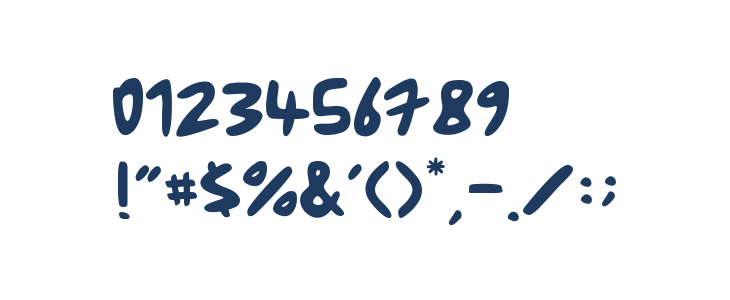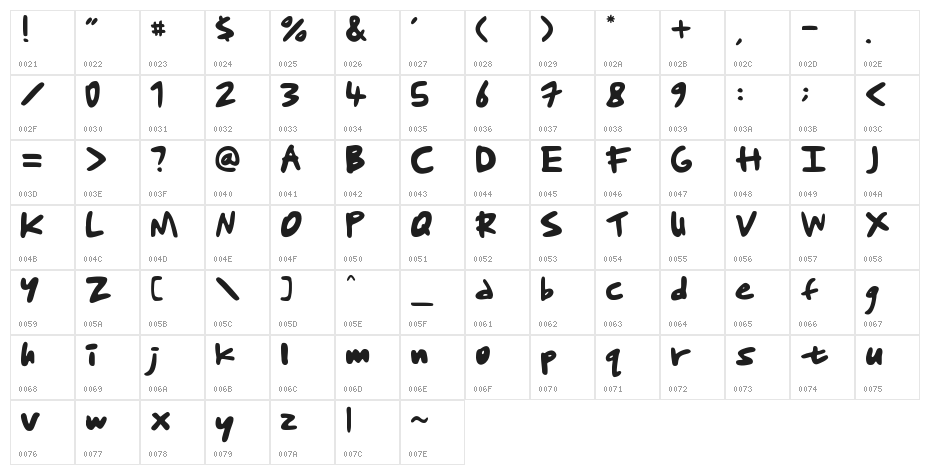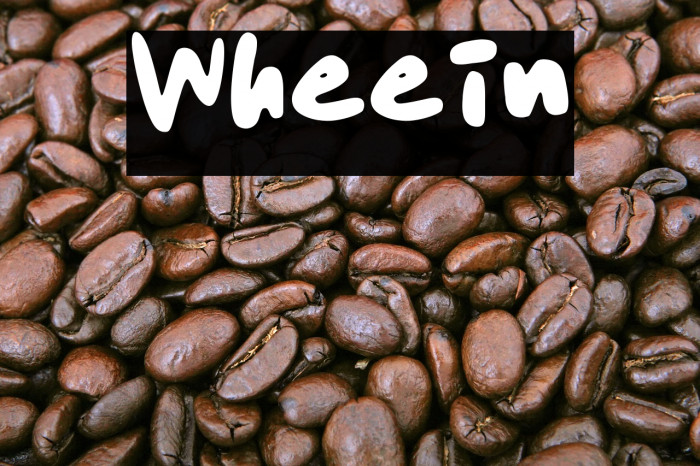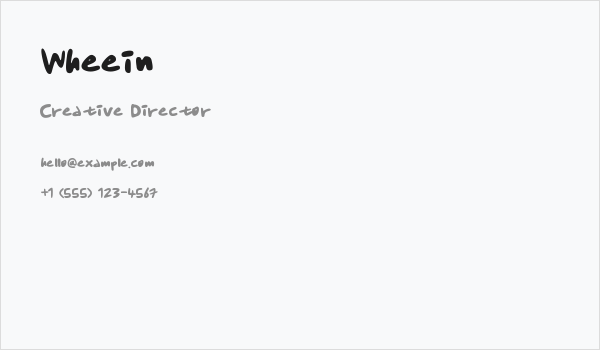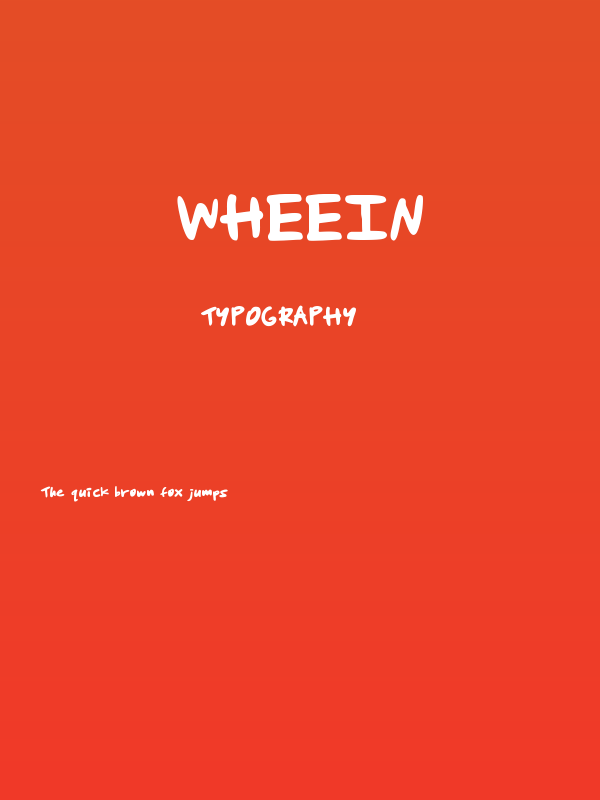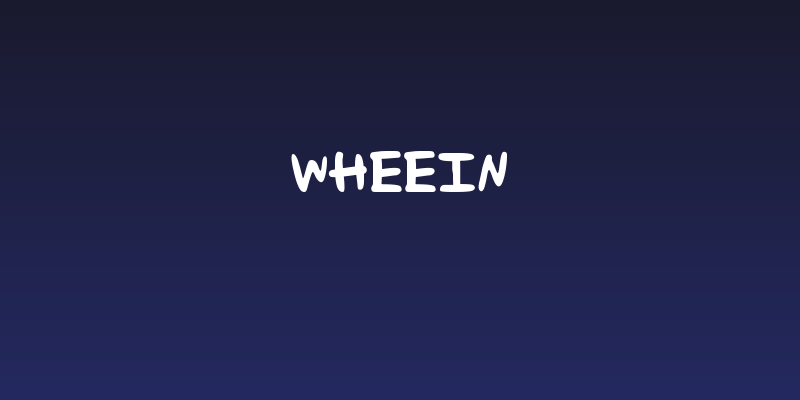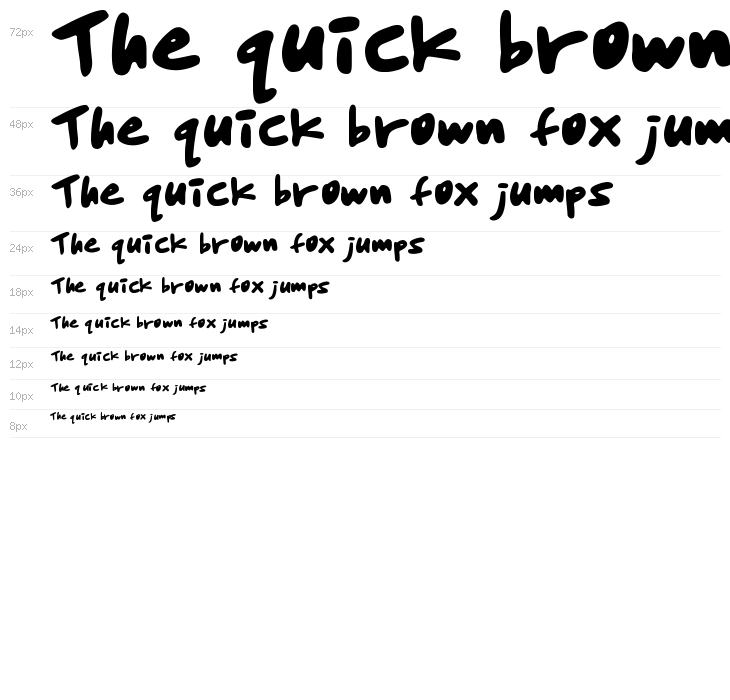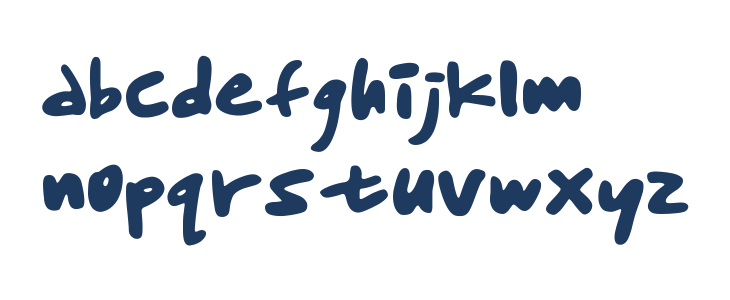
Wheein Font
Wheein Description
This font features a playful and casual handwritten style, characterized by its bold and rounded letterforms. The strokes are thick and consistent, giving it a friendly and approachable appearance. The uppercase and lowercase letters maintain a uniform height, while the numerals and special characters complement the overall style with their rounded edges. The font's informal nature makes it suitable for projects that require a personal touch, such as greeting cards, children's books, or playful branding materials.
| Overall Style | Casual, Playful |
| Use Case | Logos, Headlines, Informal Text |
| Proposed Projects | Ideal for greeting cards, children's books, playful branding, and informal invitations. |